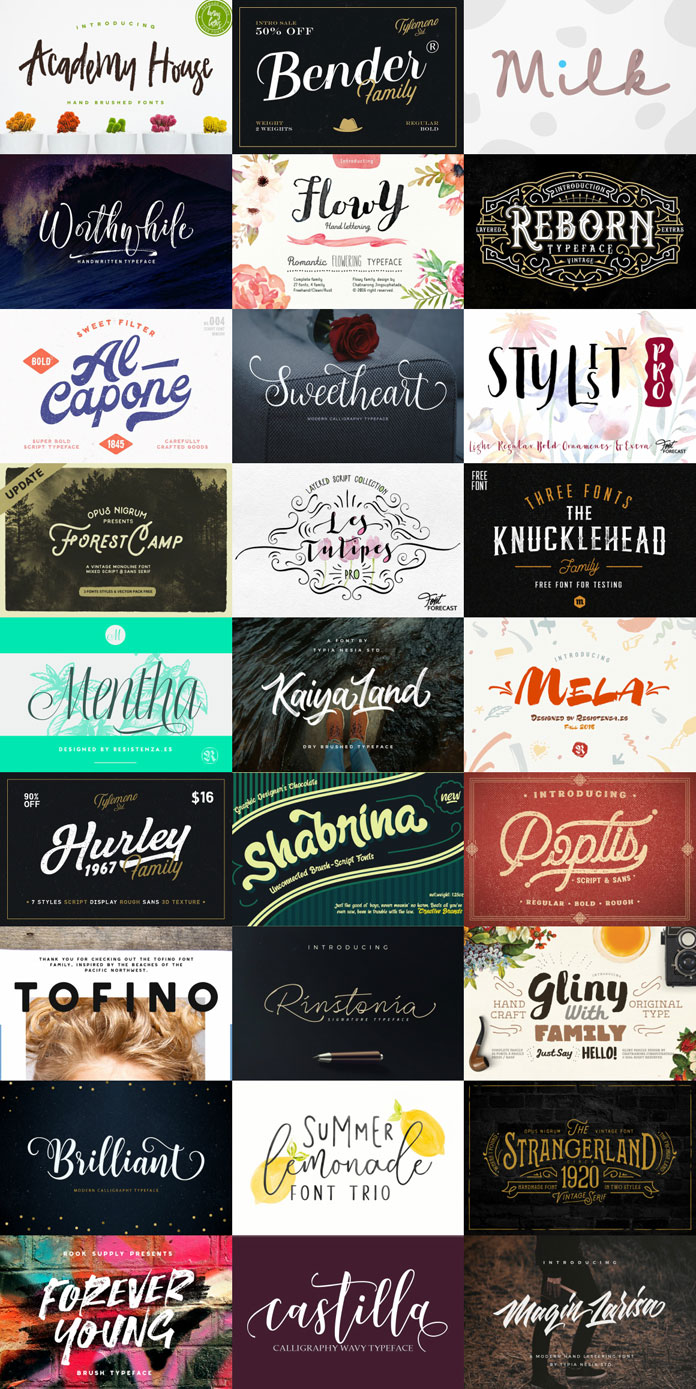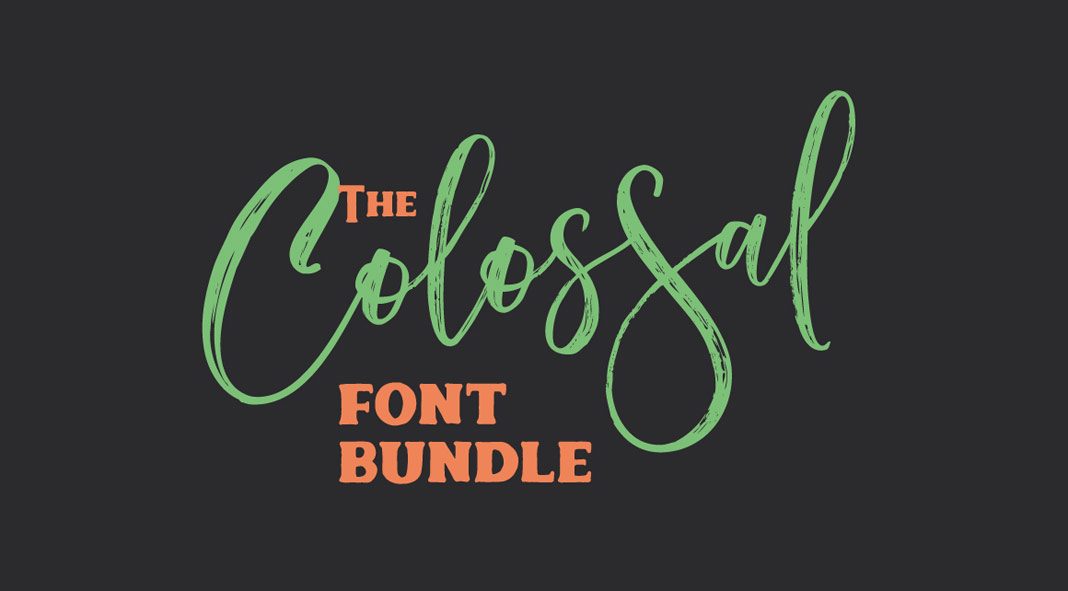
The friendly people of Pixelo have recently published a new colossal font bundle including 27 high quality fonts in different styles and various purposes such as display, hand-drawn, and script typefaces. If you would purchase all included fonts individually, you would have to pay the massive amount of $2535, but only with this special offer, you can get them all together 99%, which means you can get them all for only $29. As always, this Pixelo deal is available only for a few days! The selected typefaces can be used for diverse branding projects as well as advertisement, signage, apparel design, and so much more.
Some of the typefaces come up with numerous alternate characters, while others have many family members and different styles. The different fonts have been created by renowned type designers from around the globe. The following fonts are included: Mela Pro, Mentha, Poptis, Reborn plus extras, Knucklehead, Academy House plus logos, Summer Lemonade, Shabrina font family, Discobaby, Les Tulipes Pro, Stylist Pro, Hurley 1967 family, Bender Script, Volkschaft, Sweetheart Script, Brilliant Script, Tofino font family, Forever Young brush typeface, Forest Camp, Strangerland plus extras, Worthwhile, Castilla Script, Gliny, Flowy, Kaiya Land, Rinstonia, Maqin Larisa Script and Display. For additional information, just follow the link below.